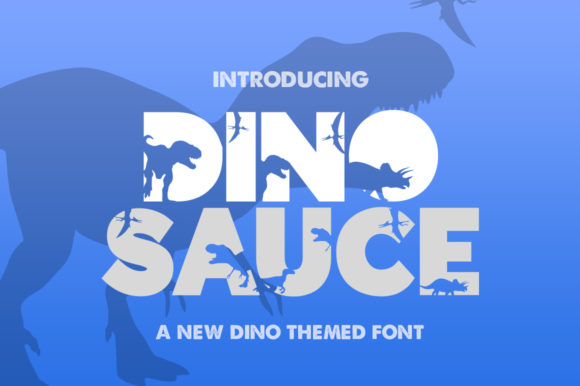
Looking for the perfect font for your kid's design project? Look no further than Dinosauce Font! Created by Salt and Pepper Fonts, this sans serif font is full of your favorite prehistoric creatures and is sure to capture your child's imagination.
Whether you're designing a birthday party invitation, creating a poster for a school event, or putting together a children's book, Dinosauce Font is the perfect choice. With its playful and fun design, it's sure to catch the eye of anyone who sees it.
But Dinosauce Font isn't just fun to look at – it's also incredibly versatile. Whether you're looking for a bold and eye-catching headline or a more subtle accent font, Dinosauce can do it all. And with its easy-to-read letters, it's perfect for both print and digital projects.
So what are you waiting for? Open the door, get on the floor, and everybody walk the dinosaur with Dinosauce Font! With its playful design, versatile style, and easy-to-read letters, it's the perfect choice for any kids-themed design project.